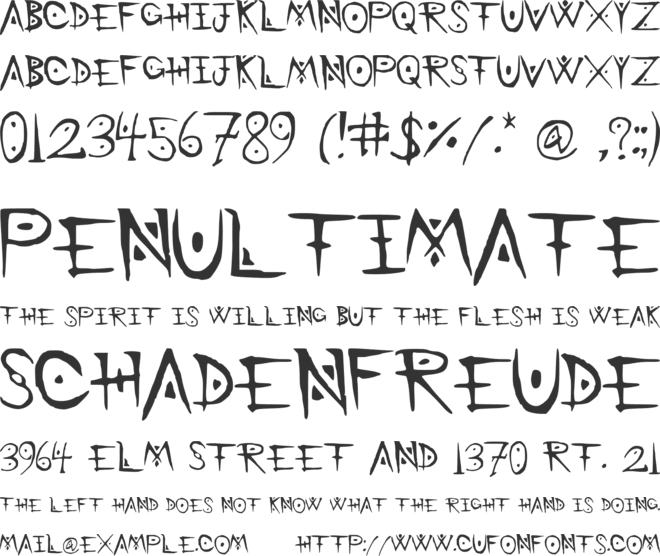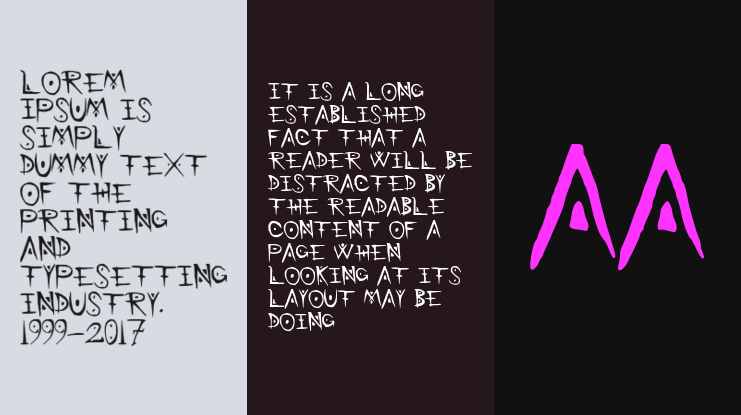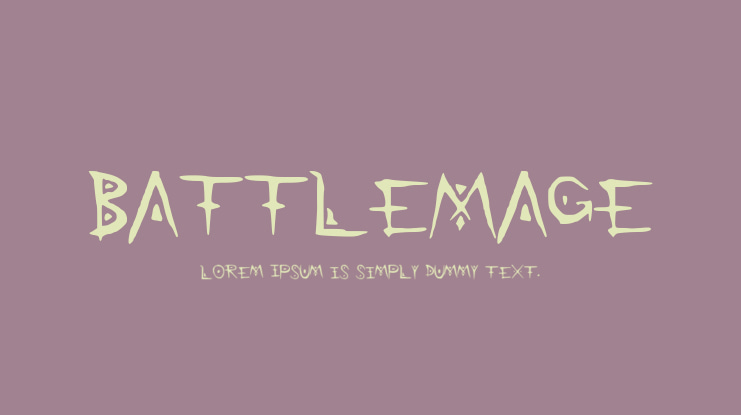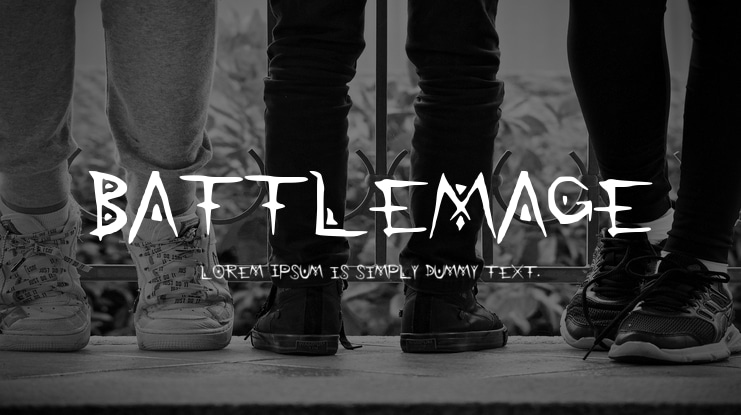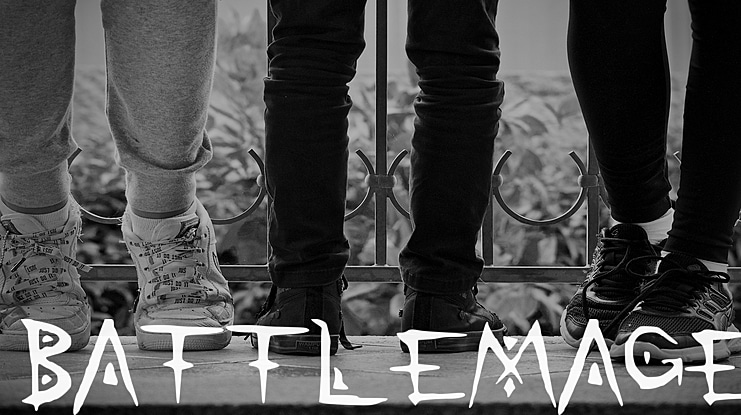
BattleMage Font
Hello, soldiers! I am VERY happy to submit my first font to Dafont.com! Normally, it is an all caps font. However, I was having some trouble deciding on what the S should look like. So I made the capital S and the lower case S look a little different. Anyway, the S is the only letter of the font that has a lower case and capital version. The rest is just the same. Numbers and most symbols included! Well, I think that's it. Hope you enjoy the font. :)
BattleMage Mager font
Created by MyScriptFont.com